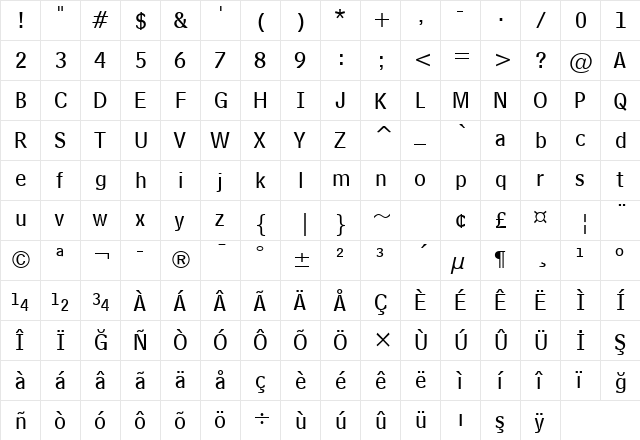
BellCent SubCap BT Sub-Caption
| Style | Sub-Caption |
Design Context for BellCent SubCap BT Typeface
BellCent SubCap BT offers clean, dependable letterforms without strong stylistic allegiance, making it a practical choice for designers who need flexibility.